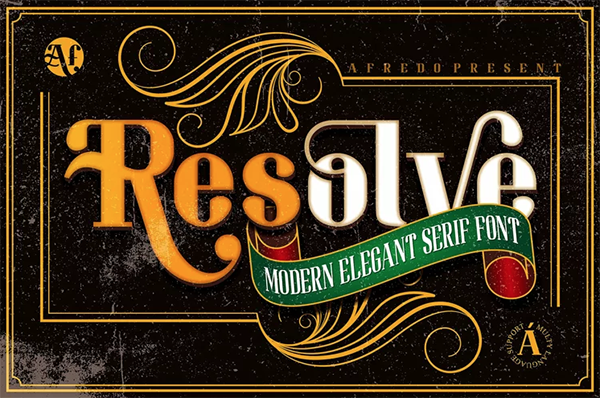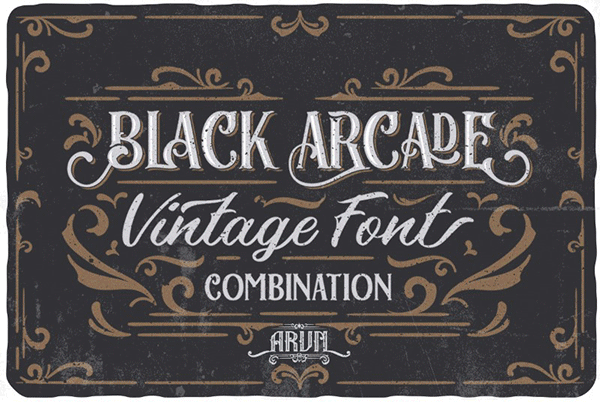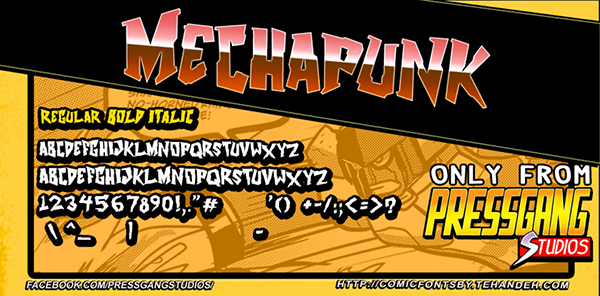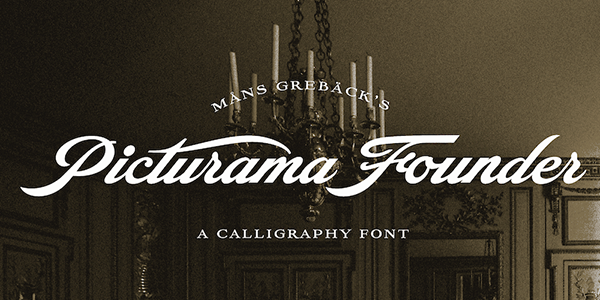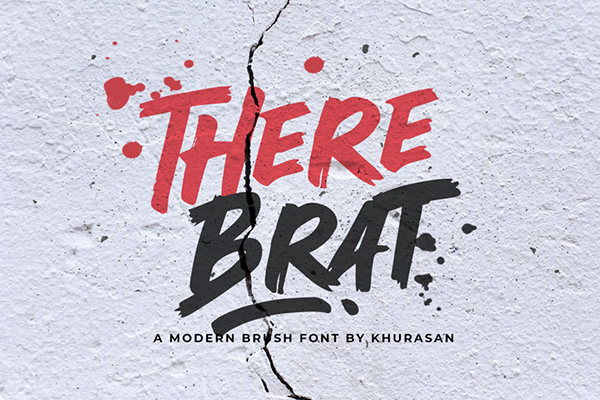
Need some spooky Halloween fonts for your race wraps or motorsports themed design projects? Download these 5 fonts to help get your creativity rolling!